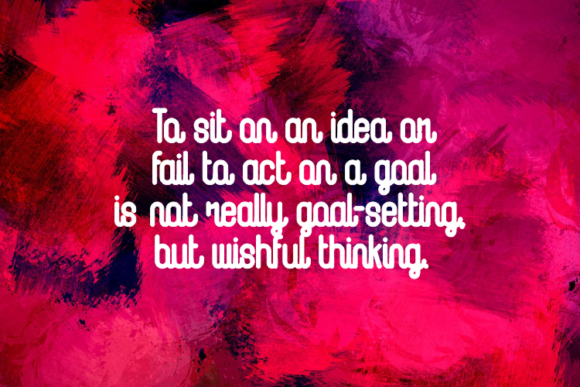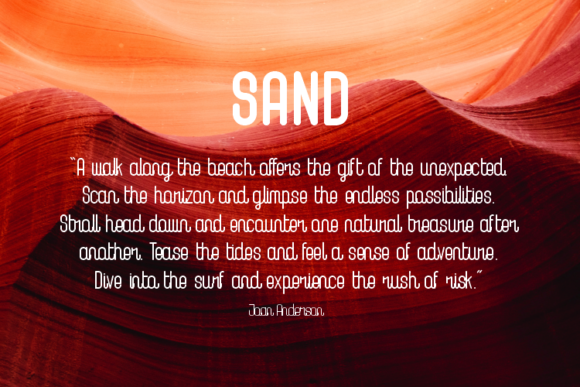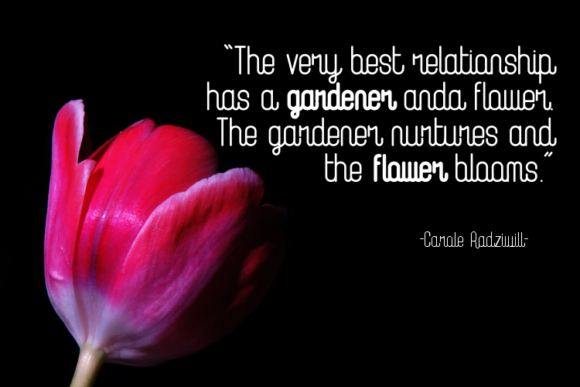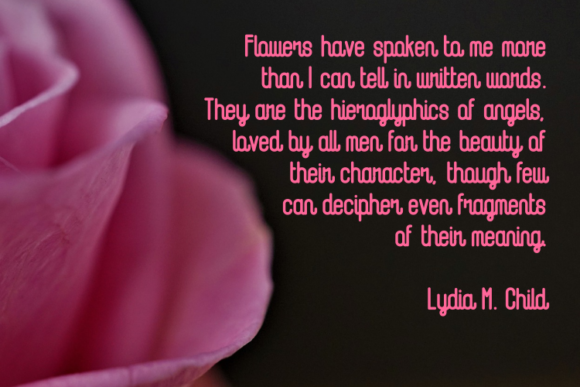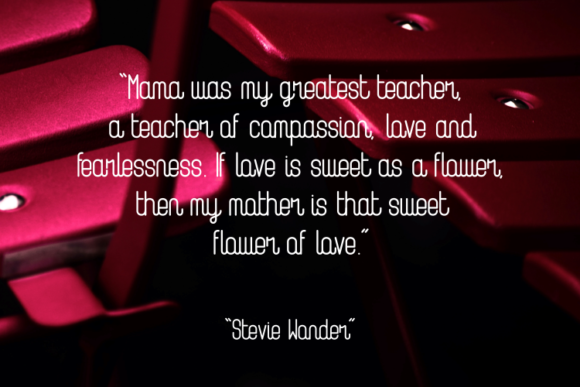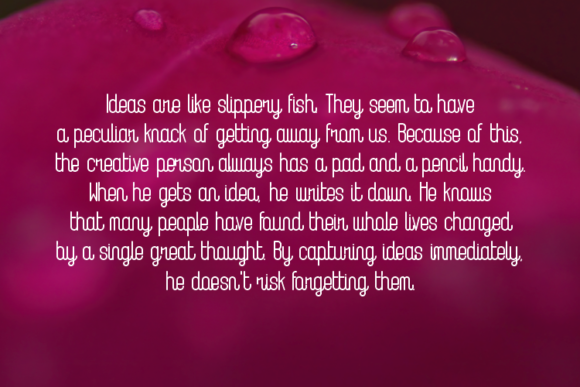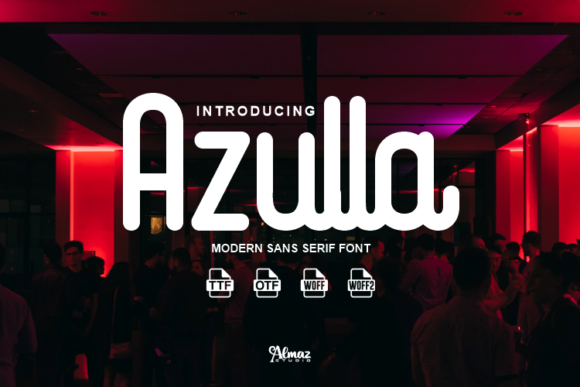
Discover the Elegance of Azulla Font: A Simple yet Versatile Handwritten Font
Are you a designer or crafter looking for a font that can elevate your creative projects? Look no further than Azulla Font, a beautiful handwritten simple font designed for various vector designs. With its elegant and attractive style, Azulla Font is perfect for a wide range of applications, from branding and invitations to social media posts and product packaging.
What Makes Azulla Font Special?
Azulla Font is a unique and versatile font that offers a range of benefits for designers and crafters. Here are some of its key features:
- Handwritten simplicity: Azulla Font has a beautiful handwritten style that is simple yet elegant. Its clean lines and minimalist design make it perfect for a wide range of applications.
- Multilingual support: Azulla Font supports multiple languages, making it a great choice for designers and crafters who work with clients from different parts of the world.
- Vector design compatibility: Azulla Font is designed for use with vector designs, making it perfect for a wide range of applications, from logos and branding to invitations and social media posts.
Uses for Azulla Font
Azulla Font is a versatile font that can be used in a wide range of applications, including:
- Branding: Use Azulla Font to create elegant and attractive logos, business cards, and other branding materials.
- Invitations: Add a touch of elegance to your invitations, whether they’re for weddings, parties, or other special events.
- Stationery: Use Azulla Font to create beautiful stationery, including letterheads, envelopes, and notecards.
- Wedding designs: Azulla Font is perfect for wedding designs, including wedding invitations, programs, and decorations.
- Social media posts: Use Azulla Font to create eye-catching social media posts that will help you stand out from the crowd.
- Advertisements: Azulla Font is a great choice for advertisements, including print ads, online ads, and billboards.
- Product packaging: Use Azulla Font to create beautiful and elegant product packaging that will help your products stand out.
- Product designs: Azulla Font can be used in a wide range of product designs, including clothing, accessories, and home decor.
- Labels: Use Azulla Font to create beautiful and elegant labels for your products or packaging.
- Photography: Azulla Font can be used to create beautiful watermarks or overlays for your photos.
Printing and Physical Applications
Azulla Font is not just limited to digital applications. It can also be used in a wide range of printing and physical applications, including:
- Product clothing: Use Azulla Font to create beautiful and elegant designs for product clothing, such as t-shirts, hoodies, and hats.
- Accessories: Azulla Font can be used to create beautiful designs for accessories, such as bags, pins, and jewelry.
- Bags: Use Azulla Font to create elegant and attractive designs for bags, including tote bags, backpacks, and purses.
- Logos: Azulla Font can be used to create beautiful and elegant logos for your business or brand.
Azulla Font is a beautiful and versatile handwritten simple font that is perfect for designers and crafters. With its elegant and attractive style, multilingual support, and vector design compatibility, Azulla Font is a great choice for a wide range of applications. Whether you’re looking to create branding materials, invitations, social media posts, or product packaging, Azulla Font is a great choice. So why wait? Download Azulla Font today and start creating beautiful and elegant designs!